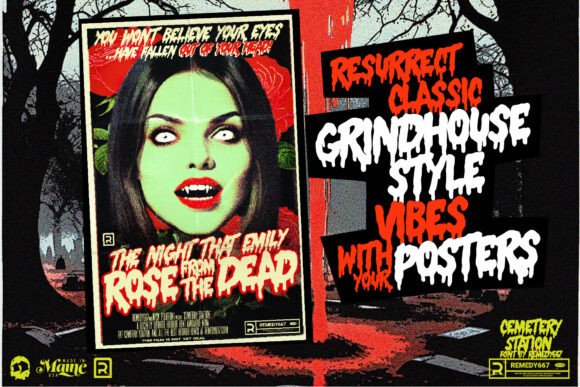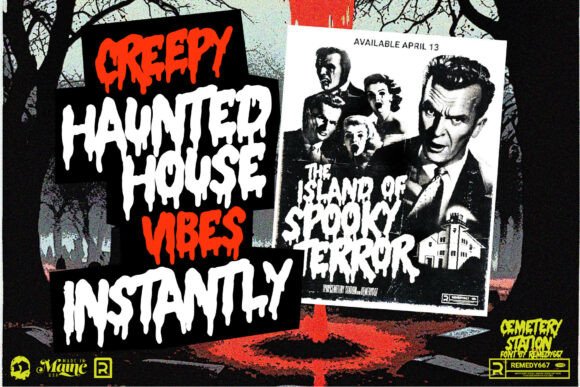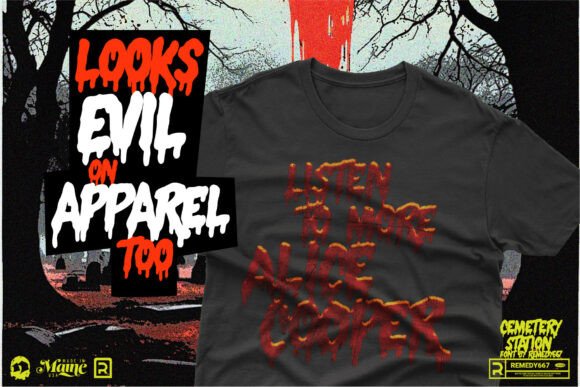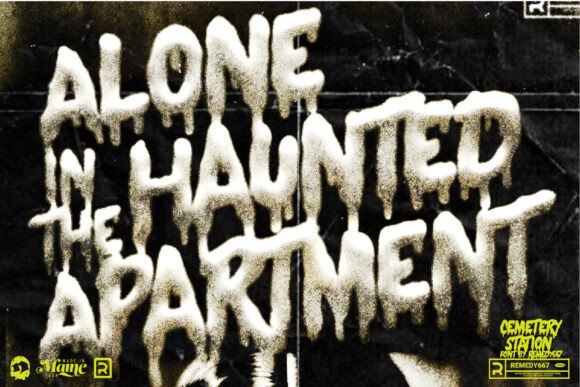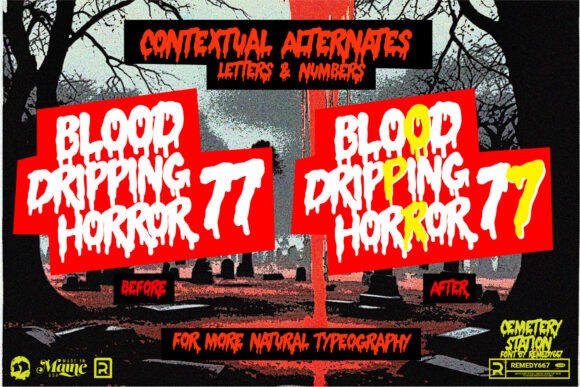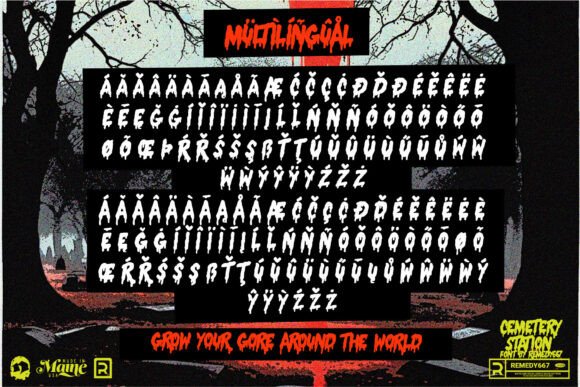
Get Spooky with Cemetery Station Font: The Ultimate Horror Font Collection
Are you looking for a font that will add a touch of eeriness to your designs? Look no further than Cemetery Station, the creative new horror font collection that’s perfect for any spooky project. This scary font is dripping with style and features a unique blend of dripping style and contextual alternates for numbers and letters, making it ideal for all things eerie.
What Makes Cemetery Station Font So Special?
Cemetery Station font is not just any ordinary font. Its unique design and features make it stand out from the rest. Here are some of the key features that make Cemetery Station font a must-have for designers and crafters:
• Dripping Style: The font features a dripping style that’s perfect for creating spooky and eerie designs. The dripping effect gives the font a creepy and abandoned look that’s sure to send chills down the spine.
• Contextual Alternates: The font comes with contextual alternates for numbers and letters, which allows you to create professional-looking designs with ease. The contextual alternates add a touch of realism to your designs, making them look like they were created by a pro.
Perfect for Horror-Themed Projects
Cemetery Station font is perfect for any horror-themed project. Whether you’re creating a Halloween party invitation, a horror movie poster, or a spooky craft project, this font is sure to add the perfect touch of eeriness. The font is versatile and can be used for a variety of projects, including:
• Halloween Party Invites: Create spooky and inviting Halloween party invites that will set the tone for a howling good time.
• Horror Movie Posters: Create professional-looking horror movie posters that will grab the attention of horror fans.
• Add a touch of eeriness to your spooky craft projects, such as ghostly decorations, creepy cards, and haunted scrapbook pages.
Take Your Designs to the Next Level
Cemetery Station font is designed to help you take your designs to the next level. With its unique features and ease of use, you can create professional-looking designs that will impress your audience. Here are some tips for using Cemetery Station font to take your designs to the next level:
• Experiment with Different Styles: Don’t be afraid to experiment with different styles and techniques to create unique and eye-catching designs.
• Use Contextual Alternates: Use contextual alternates to add a touch of realism to your designs and create a more professional look.
• Add Texture and Patterns: Add texture and patterns to your designs to create a more spooky and eerie atmosphere.